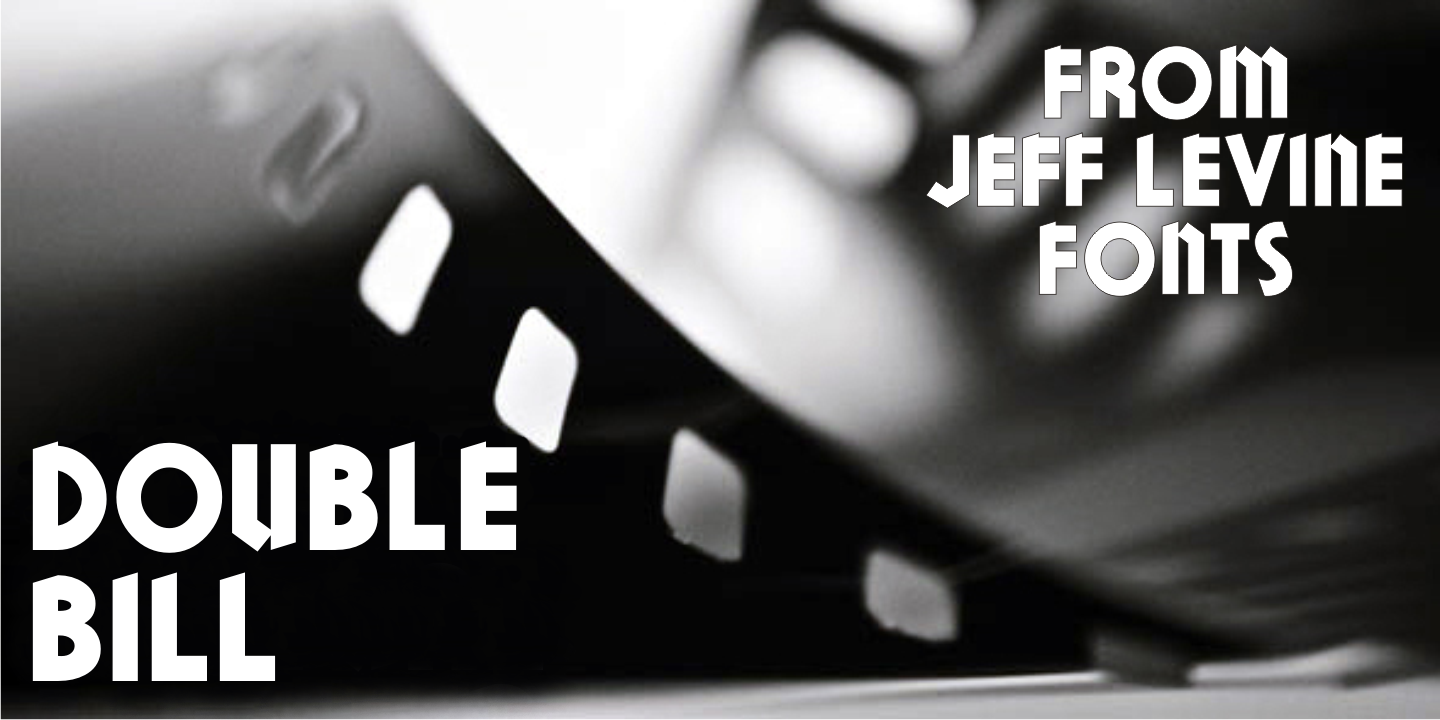
Double Bill JNL is a display sans font published by Jeff Levine Fonts.
Double Bill JNL gets its inspiration from the promotional movie trailer for 1938’s gangster comedy “A Slight Case of Murder” starring Edward G. Robinson.